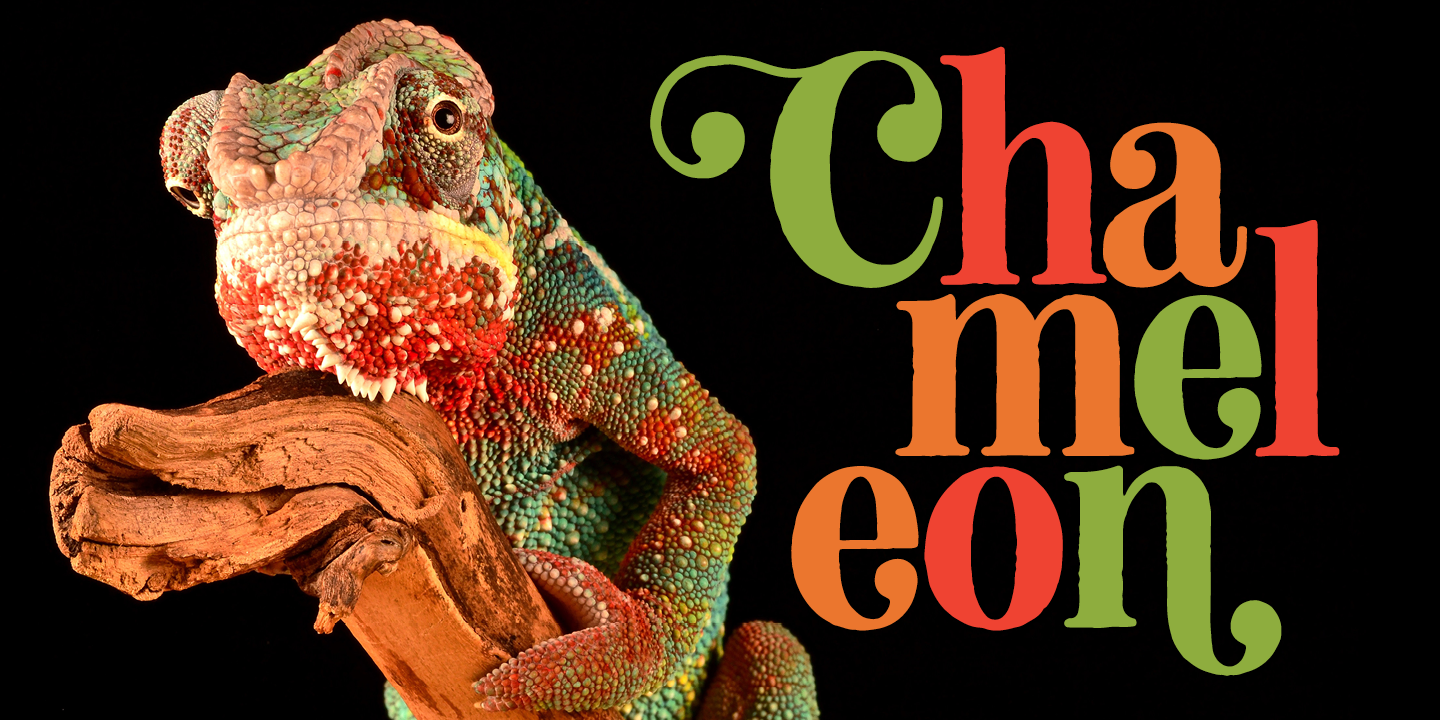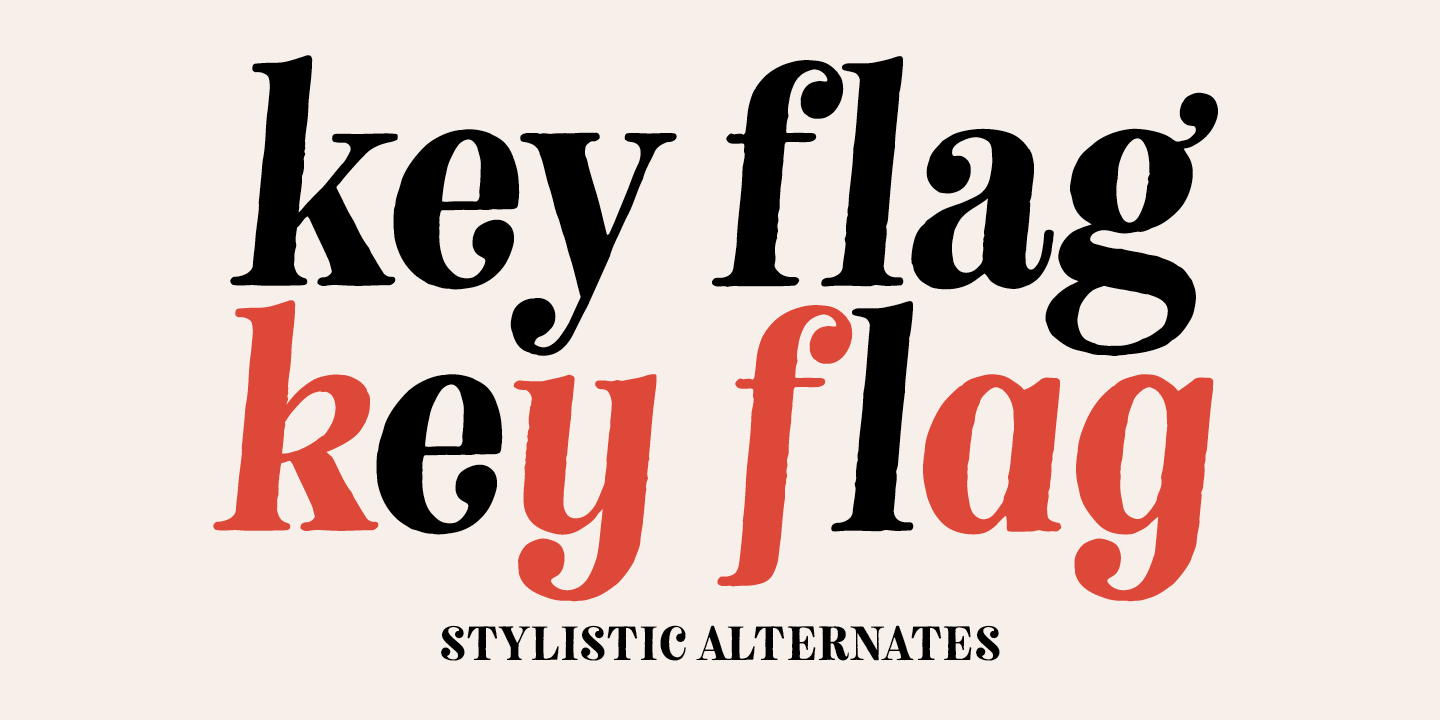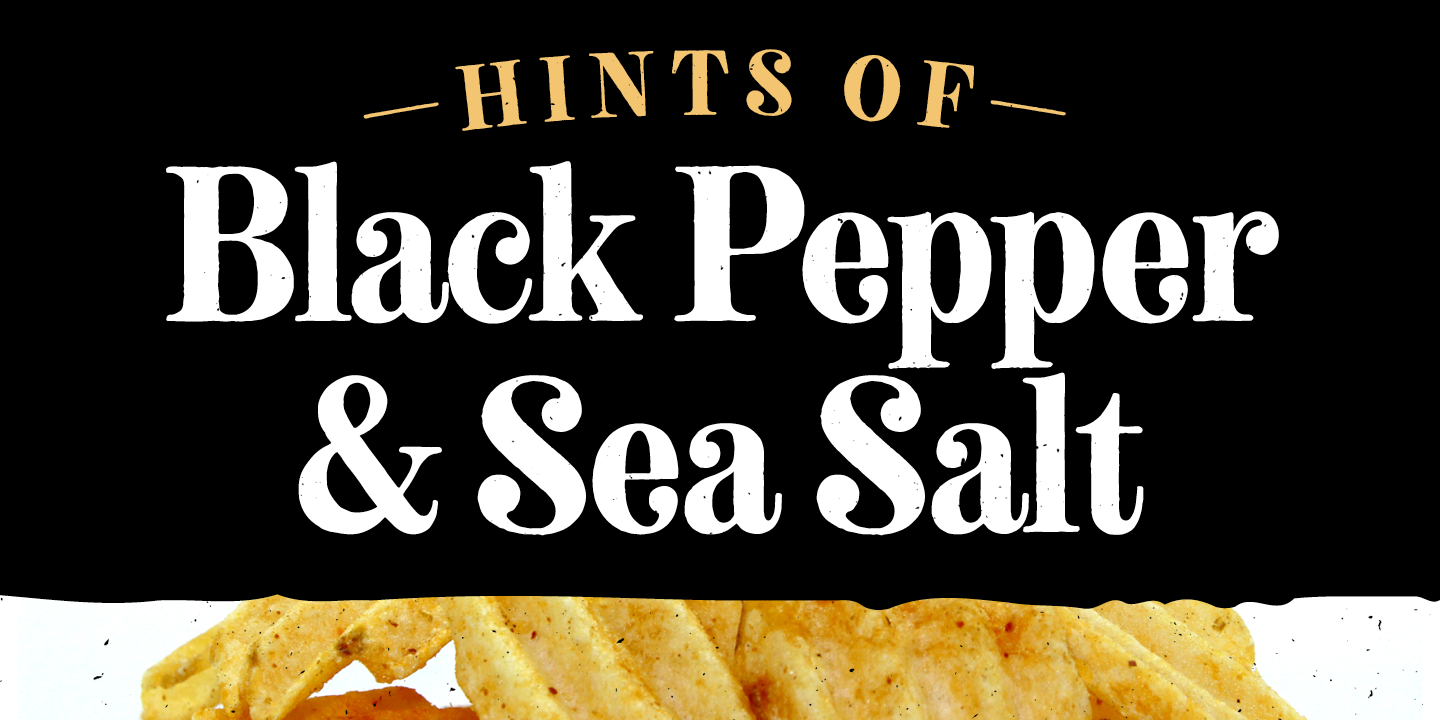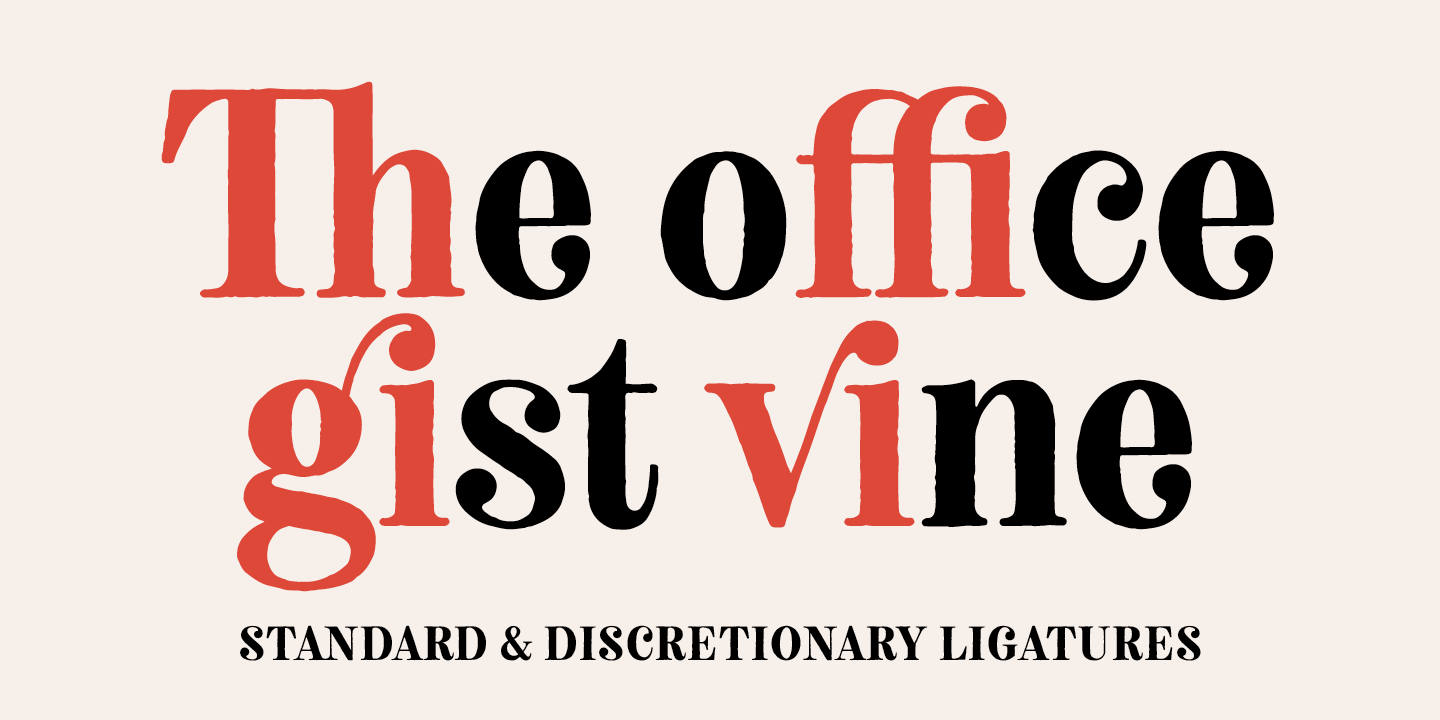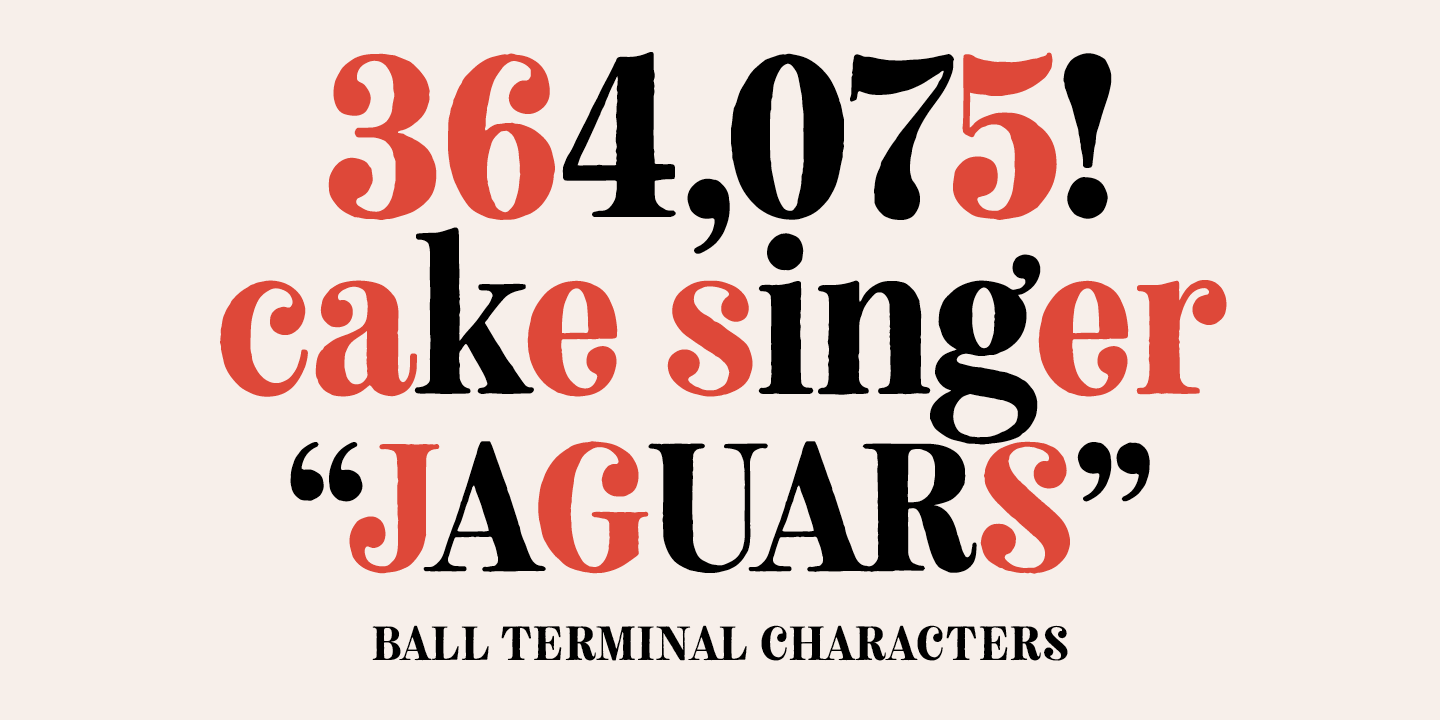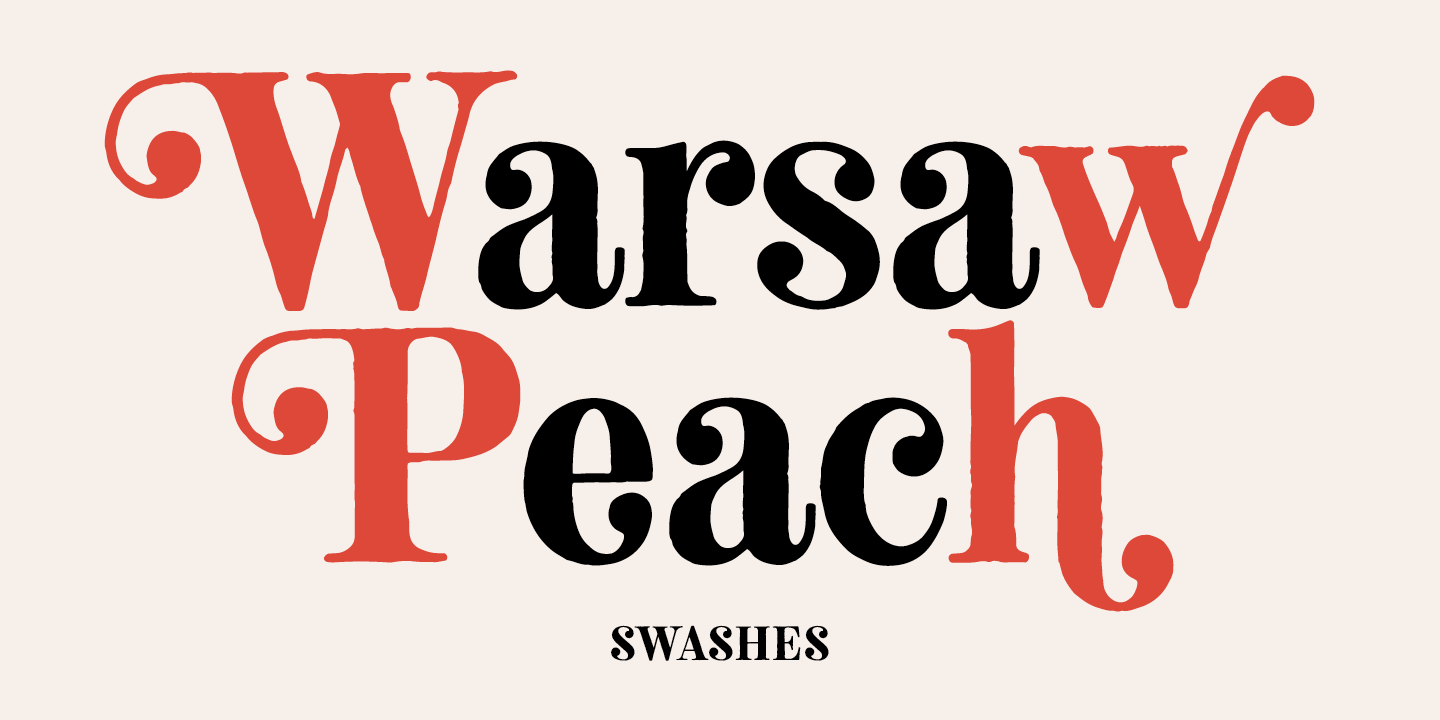
Neato Serif is a hand drawn, quirky serif font in regular and italic styles. It features stylistic alternates, standard and discretionary ligatures, and swashes to add options and flair to your typography. The typeface has a unique blend of sophistication with its high contrast of thicks and thins and also playfulness with the distinct ball terminal characters—especially evident in the lowercase “e”. It is slightly condensed and great for display headlines, titles, packaging, branding, and more.
Features include: stylistic alternates for more options; swash characters for more personality in both upper and lowercase; standard ligatures for classic combinations like “ffi” and “tt” and more; discretionary ligatures for playful combinations like “ri” and “gi” and more.